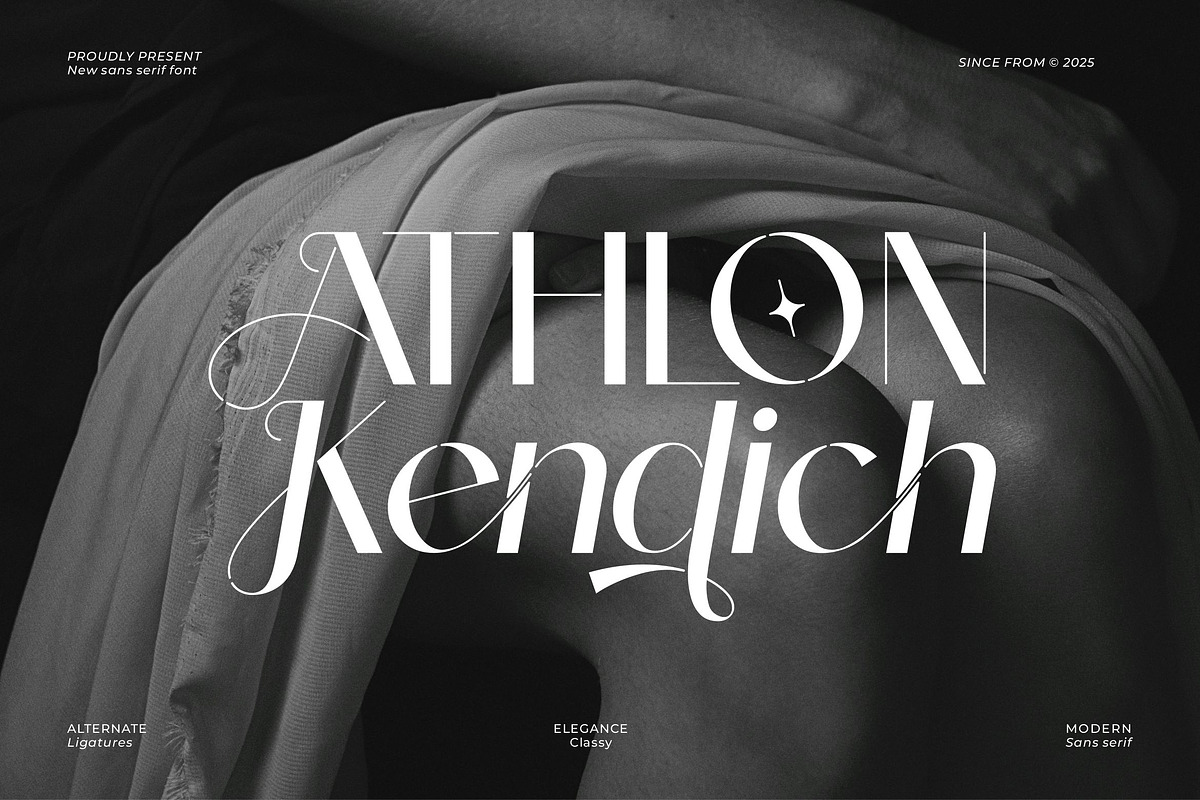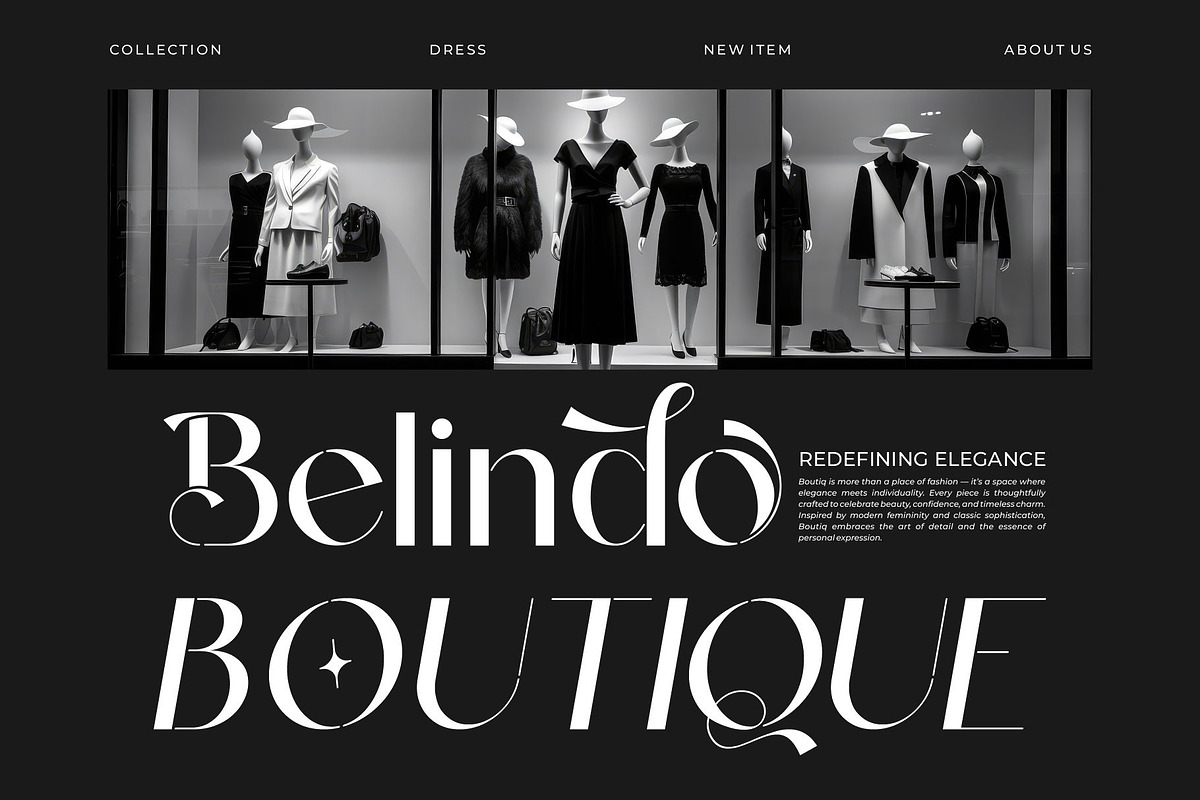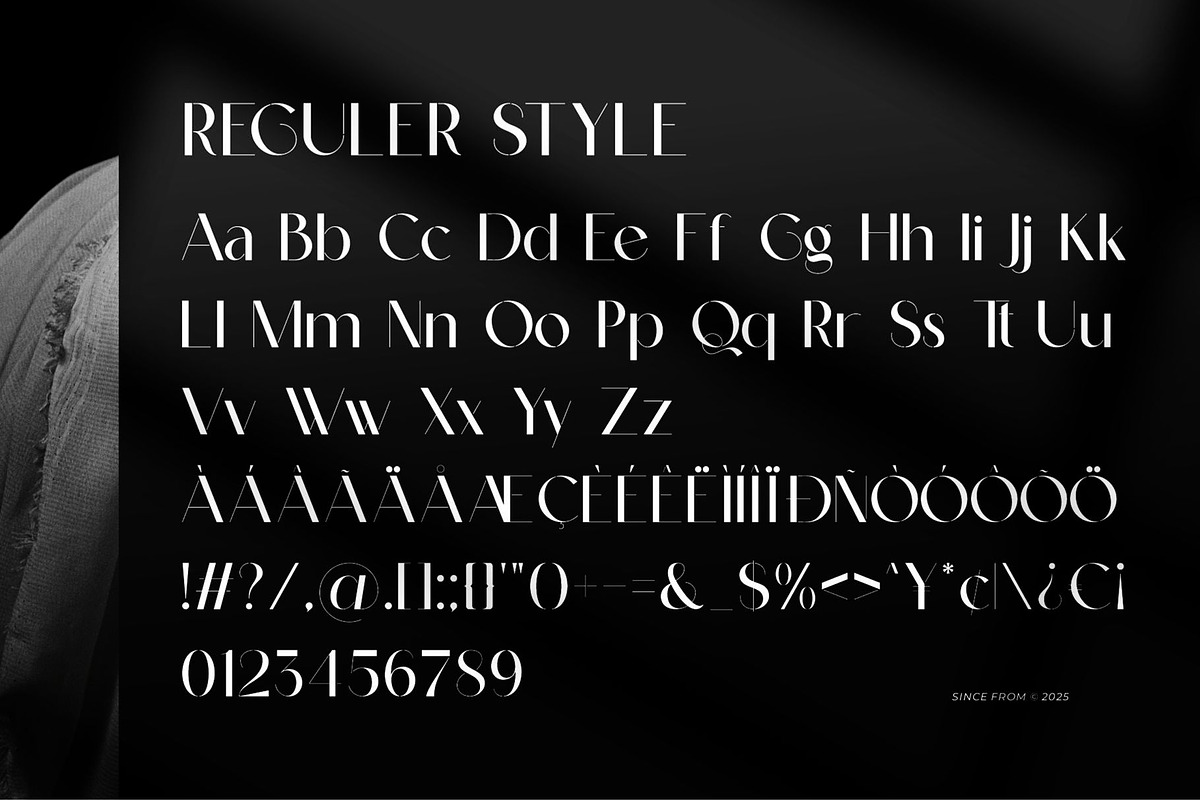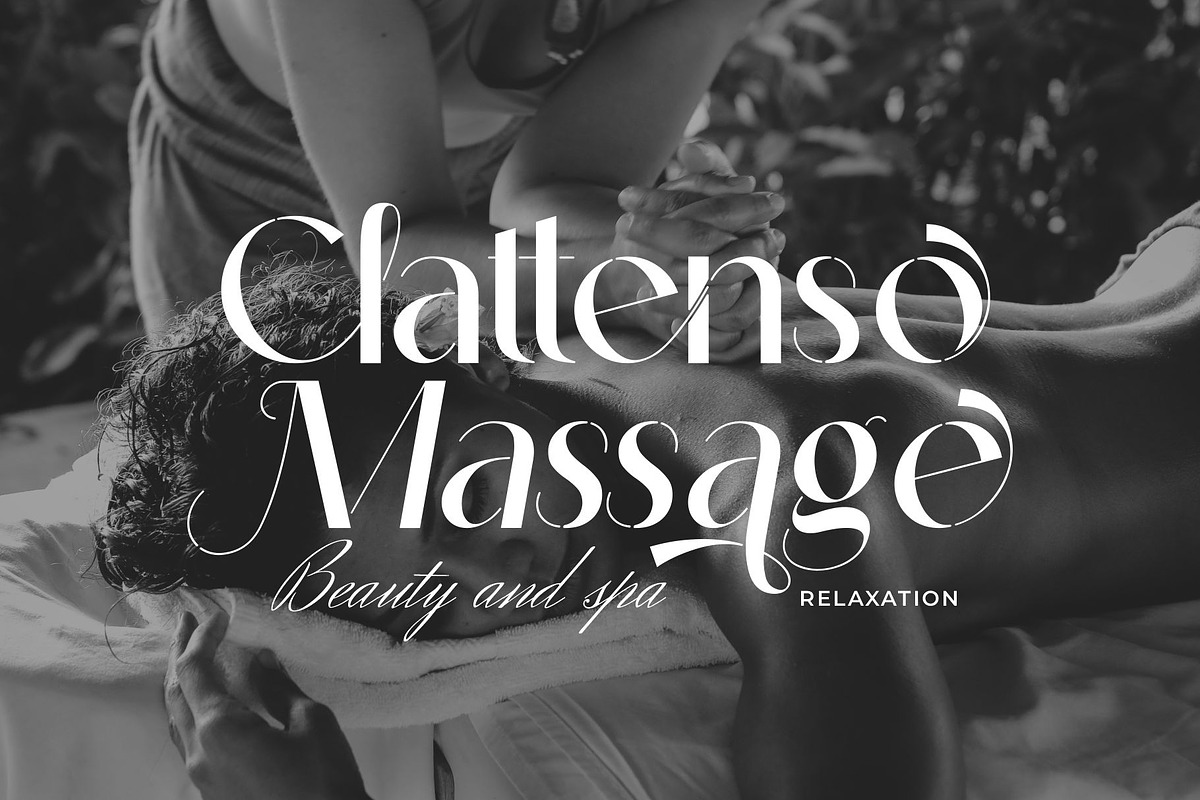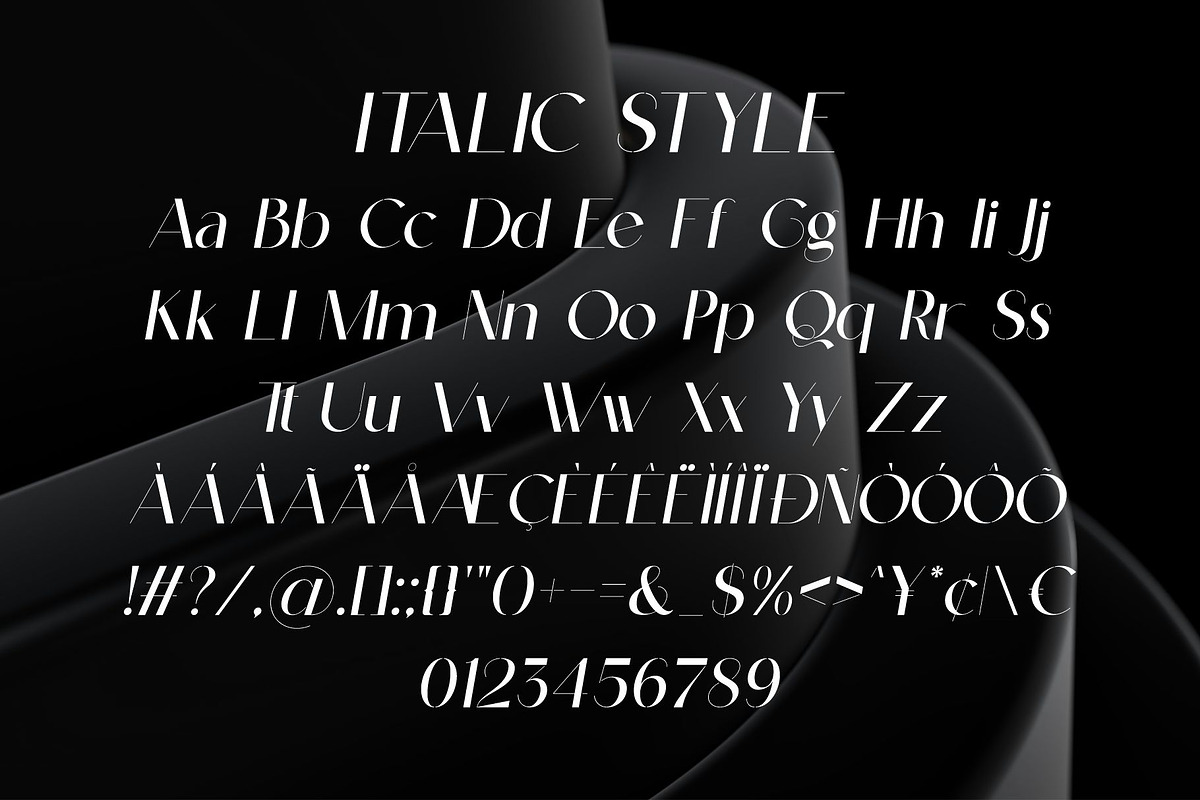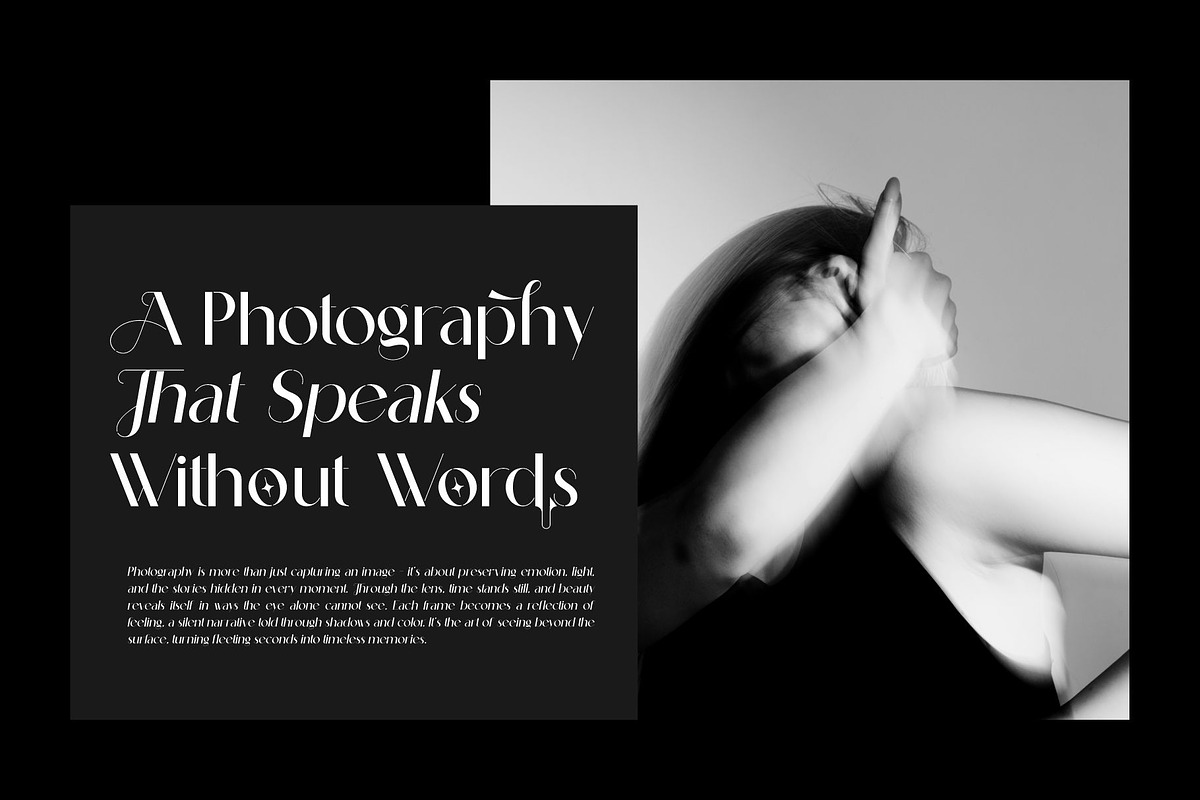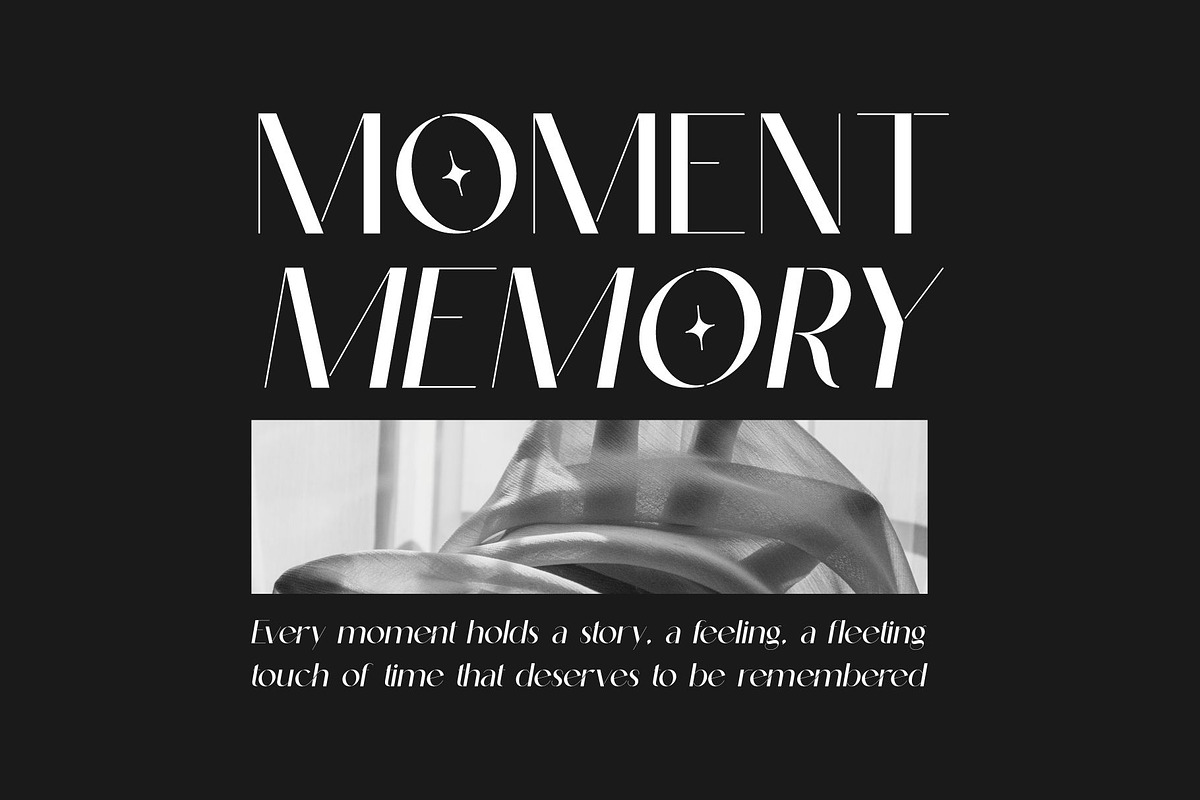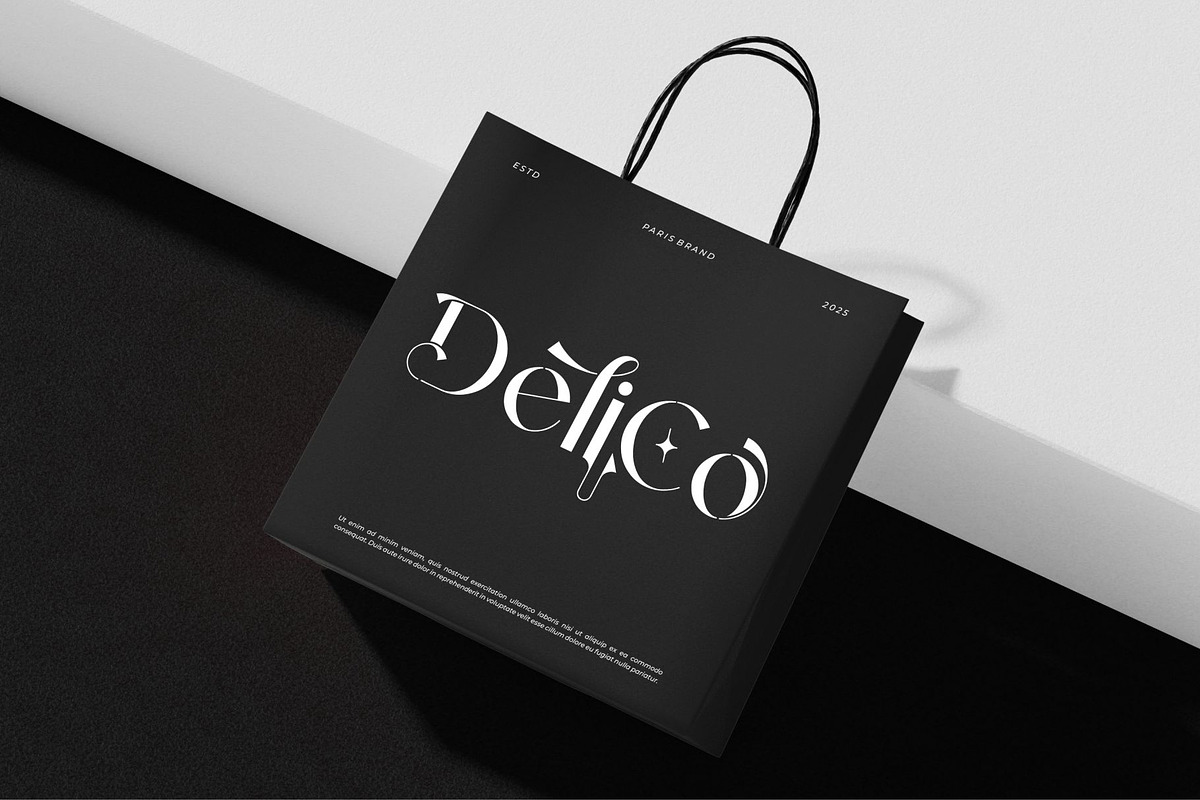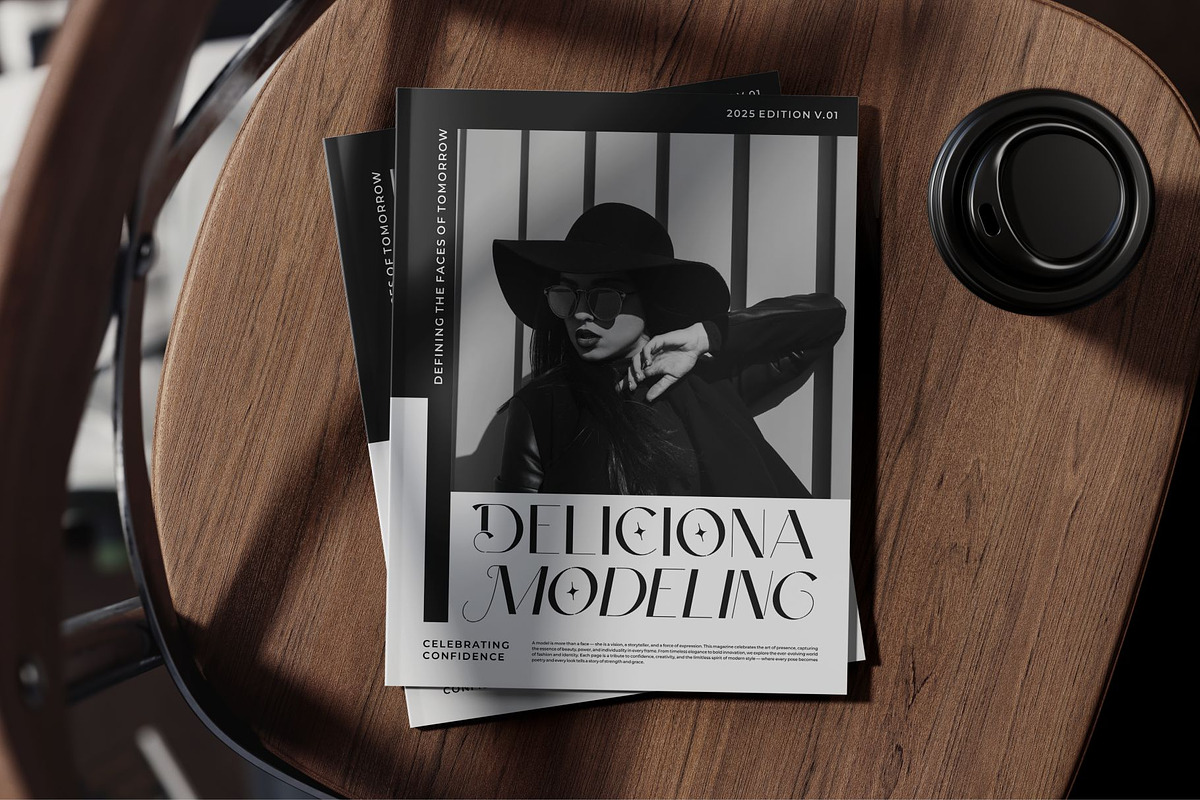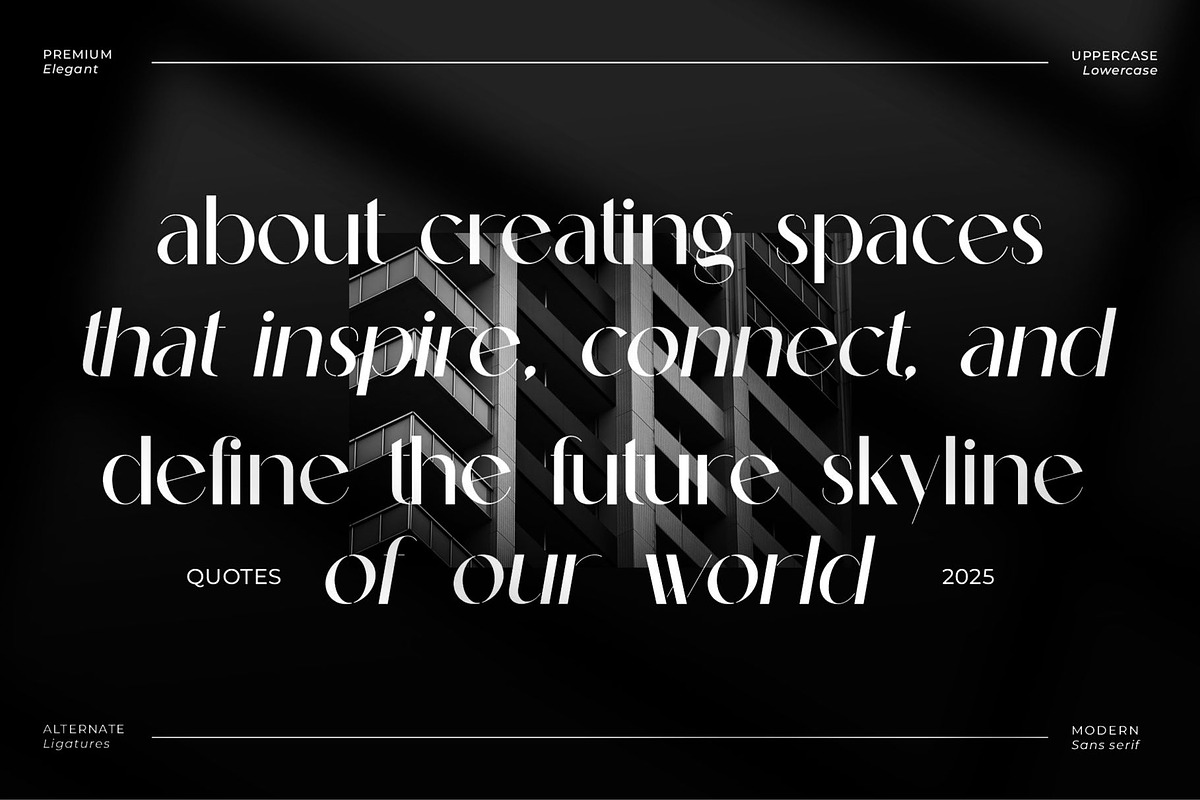
Athlon Kendich || Elegant Sans Serif
Athlon Kendich Sans Serif is a an elegant and smooth combine typeface regular and italic sans serif font. He has a beautiful character. It fits perfectly with invitation card designs, company logos, movie titles, movie names, business cards, book titles, brand names and various other designs. Athlon Kendich Sans Serif is a subtle sans serif font that exudes sophistication and elegance. Its stylish alternations and ligatures make this font the perfect partner for any project.